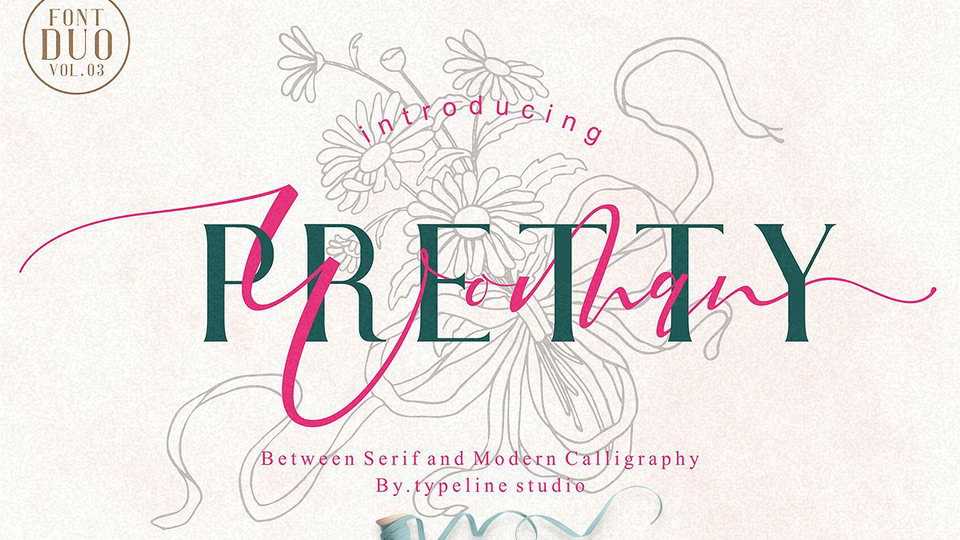
Download Pretty Woman typeface – an amazing font duo between serif and modern calligraphy. It is good for logo, branding, wedding invitation, quotes text, magazine, or anything do you want..
Designer: Typeline Studio